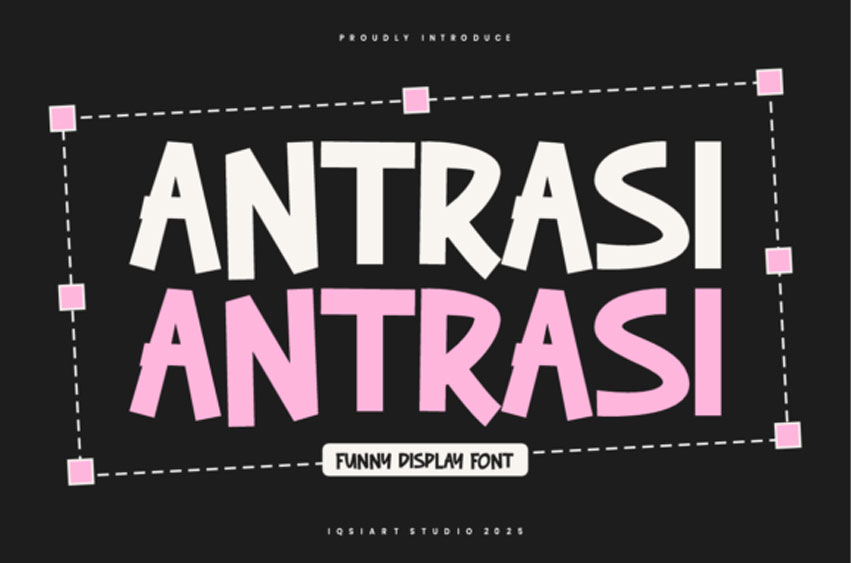
Antrasi Font
Antrasi Font Bring playful energy to your designs with Antrasi, a fun and quirky display font with a touch of retro charm. With its irregular letter shapes and dynamic tilt, Antrasi makes your headlines pop and your branding projects memorable.
Perfect for posters, children’s books, product packaging, and social media graphics, this font radiates joy and movement. Its bold style and playful attitude make it an excellent choice for creatives looking to stand out.